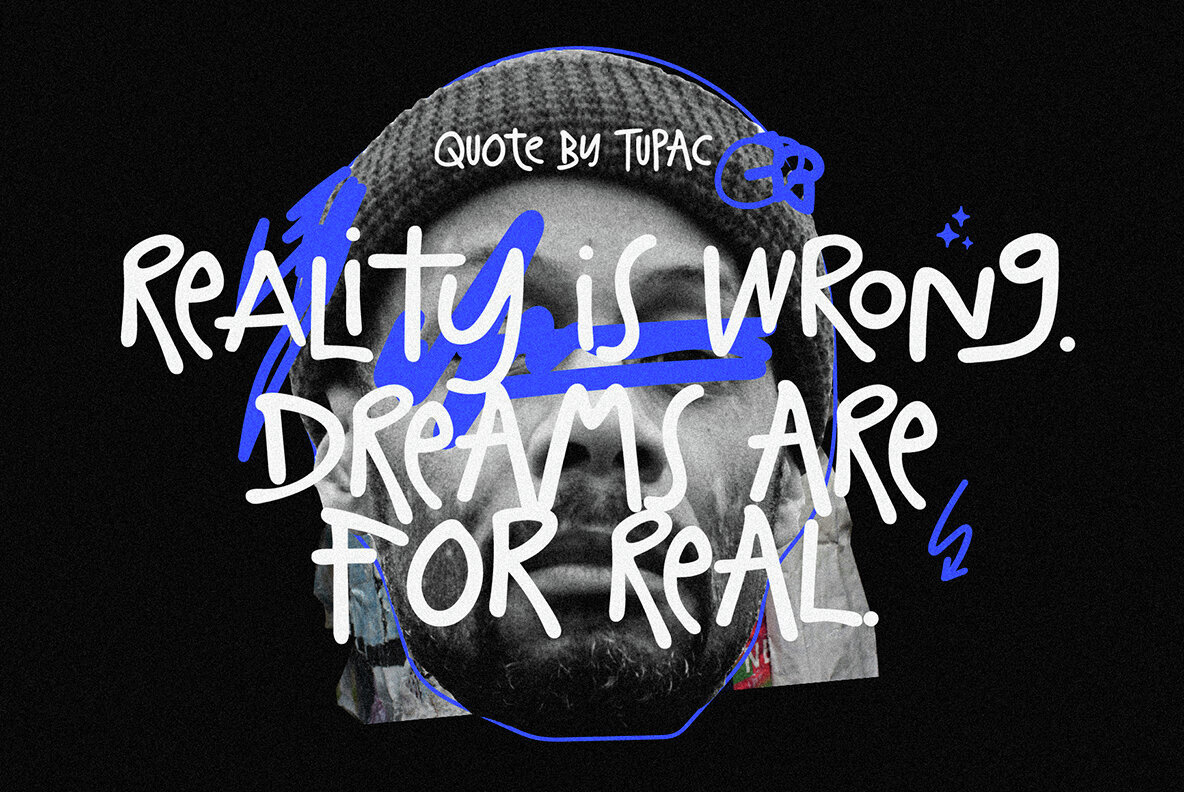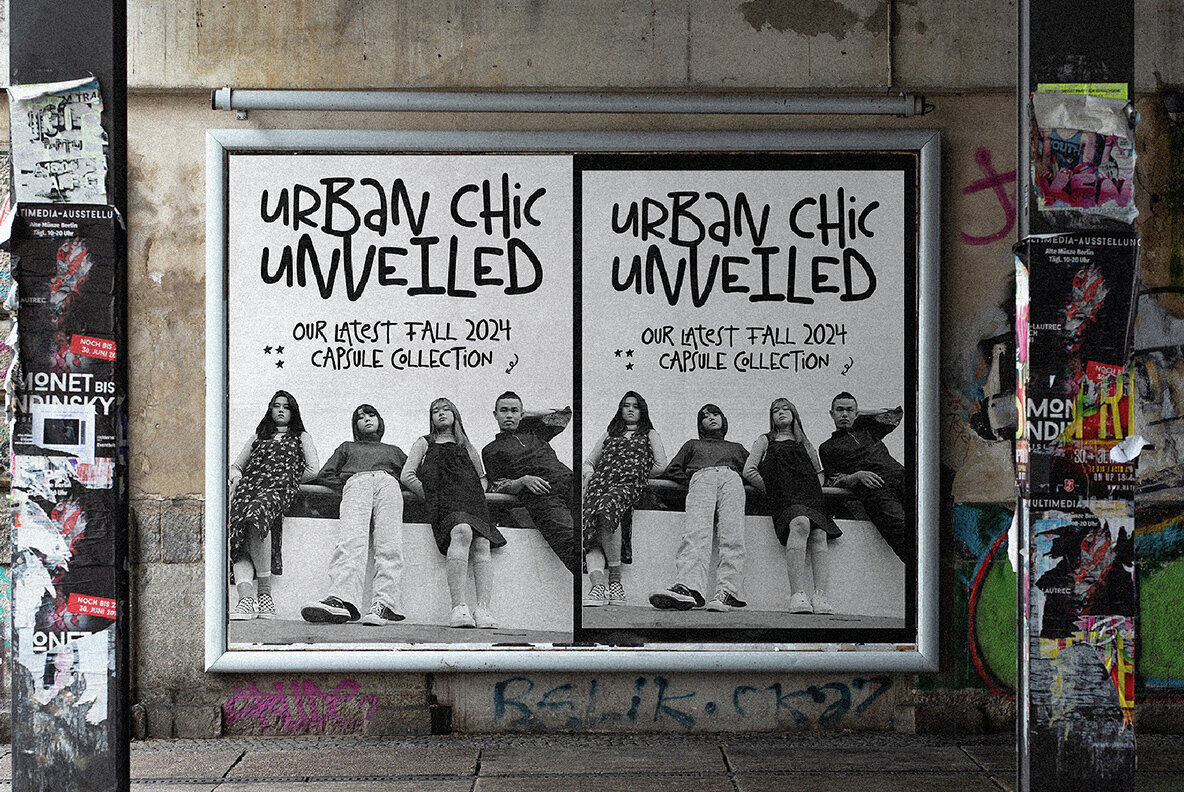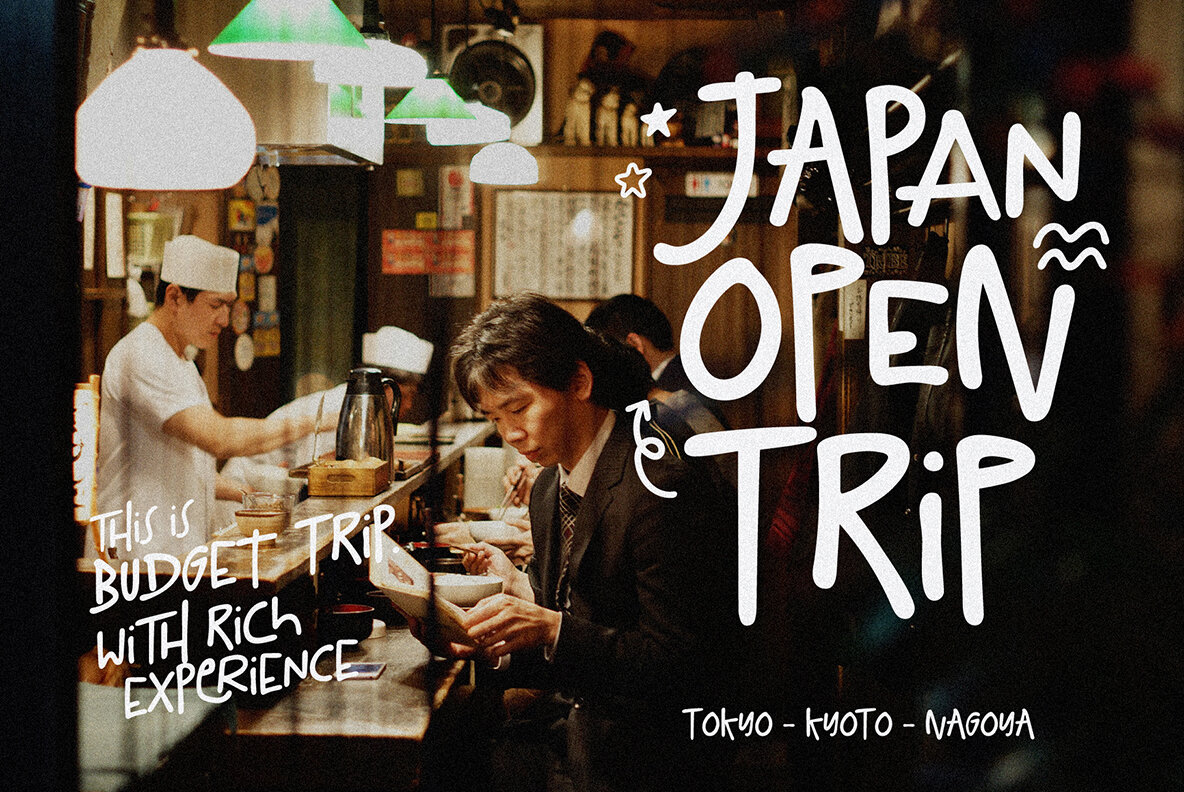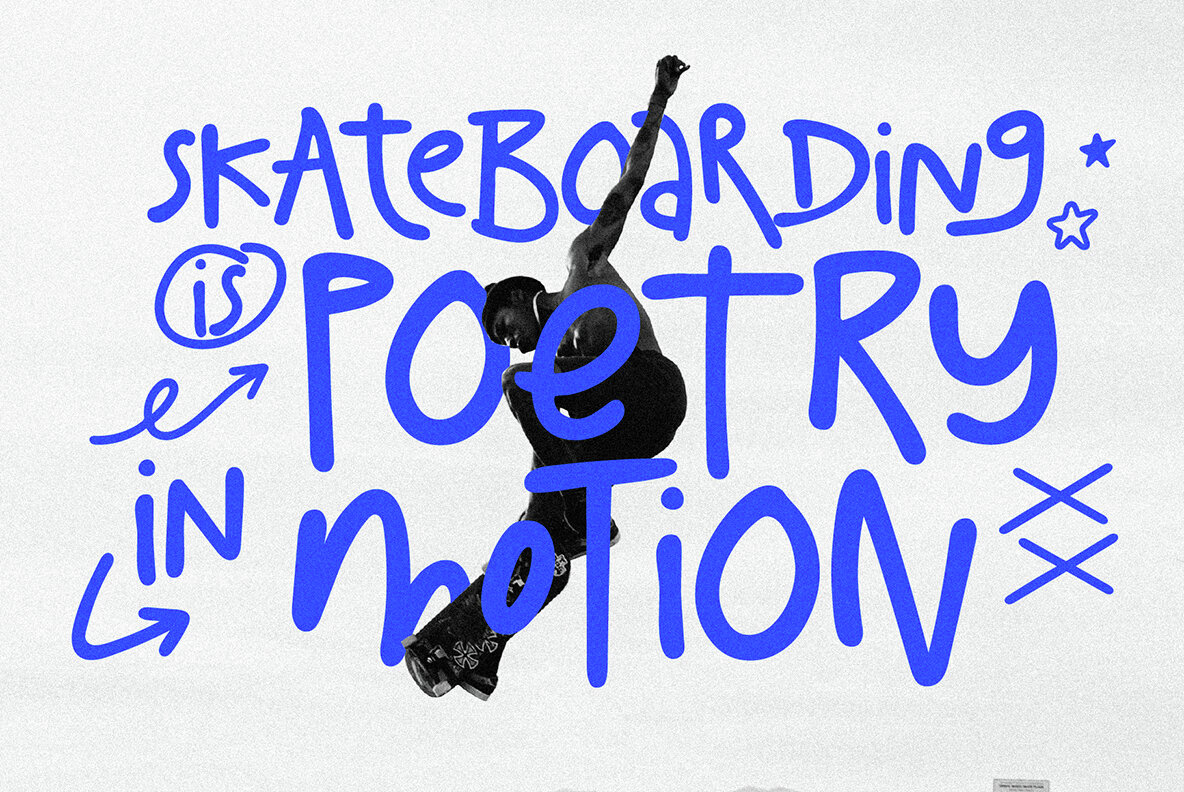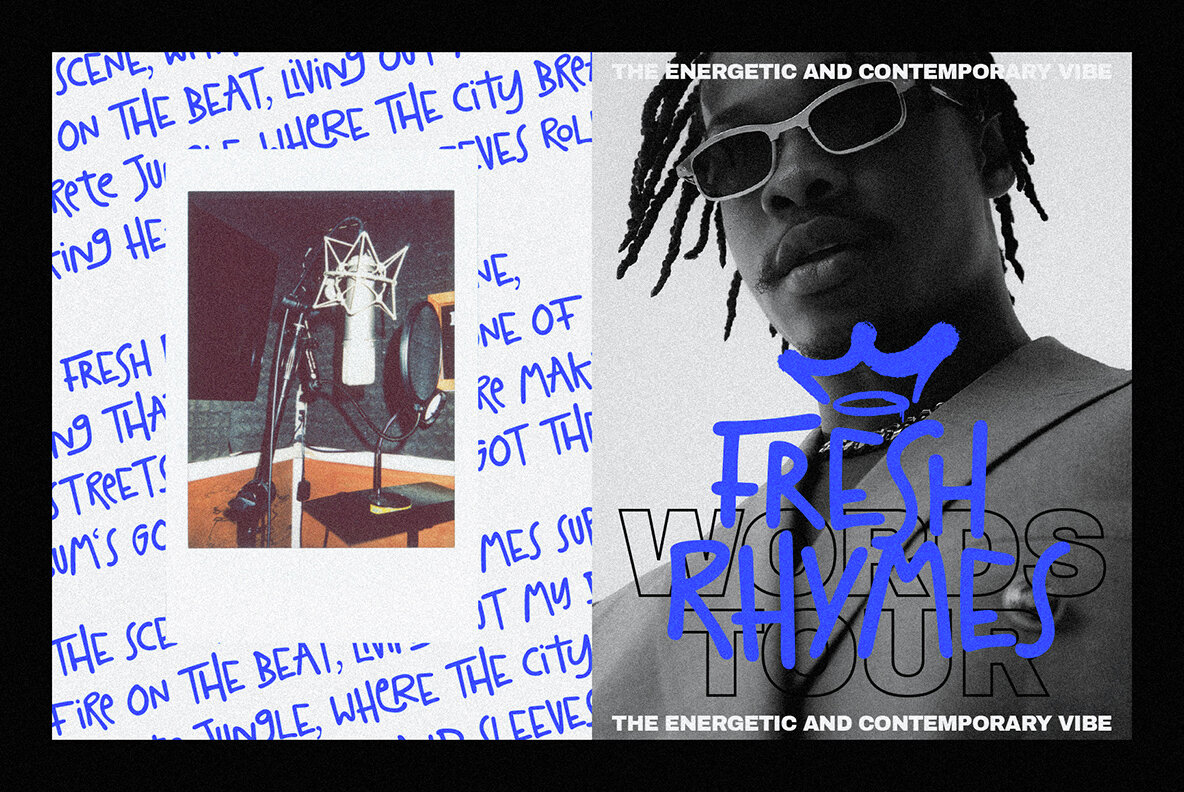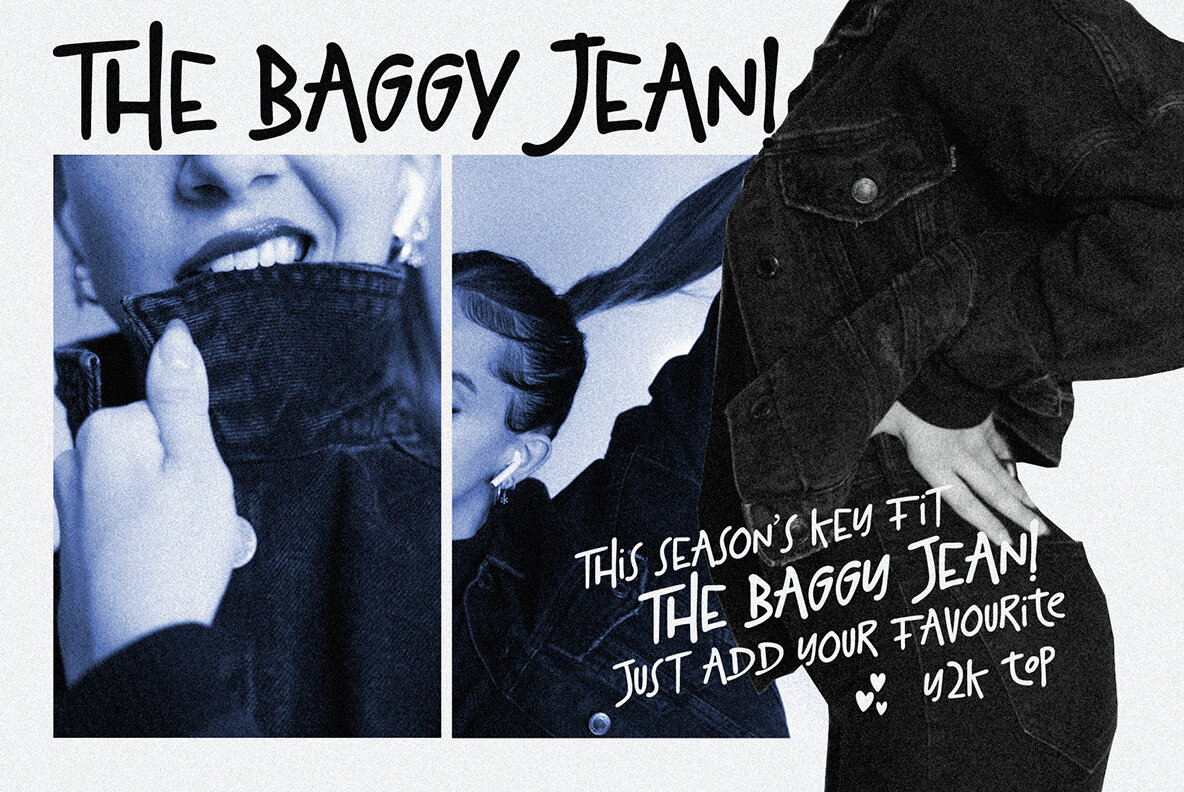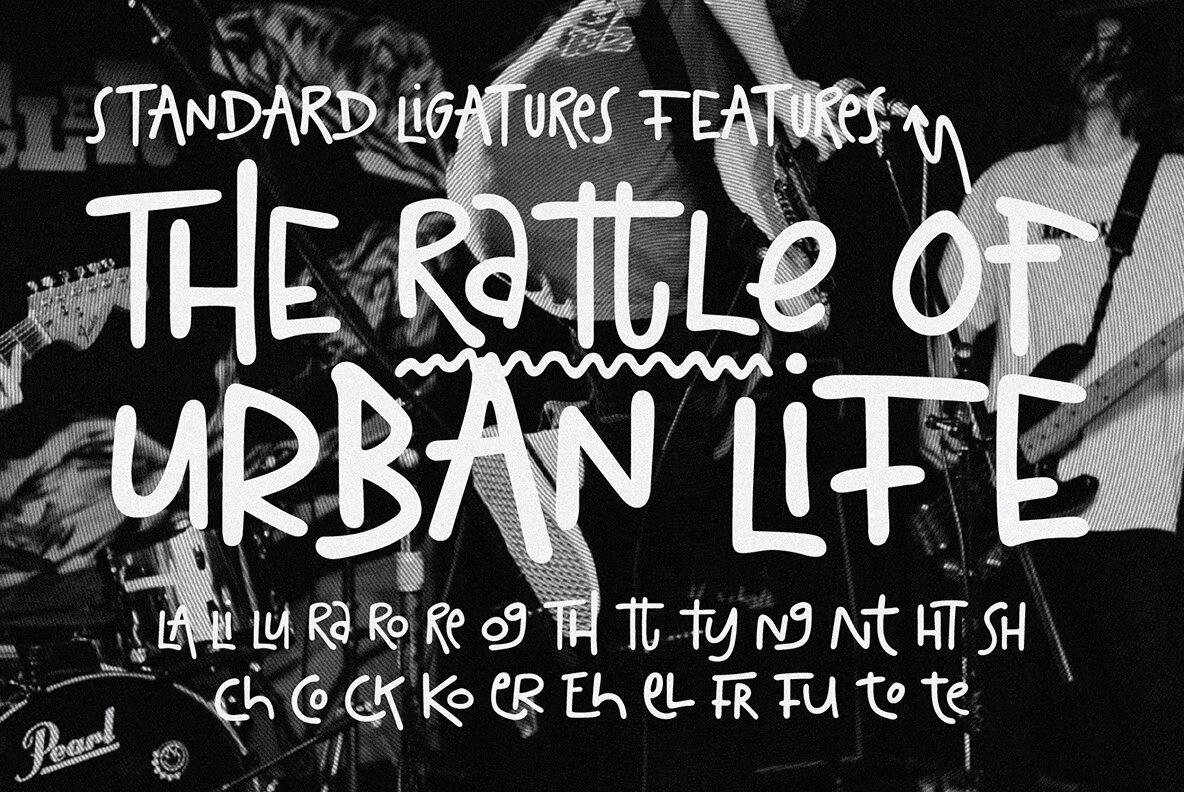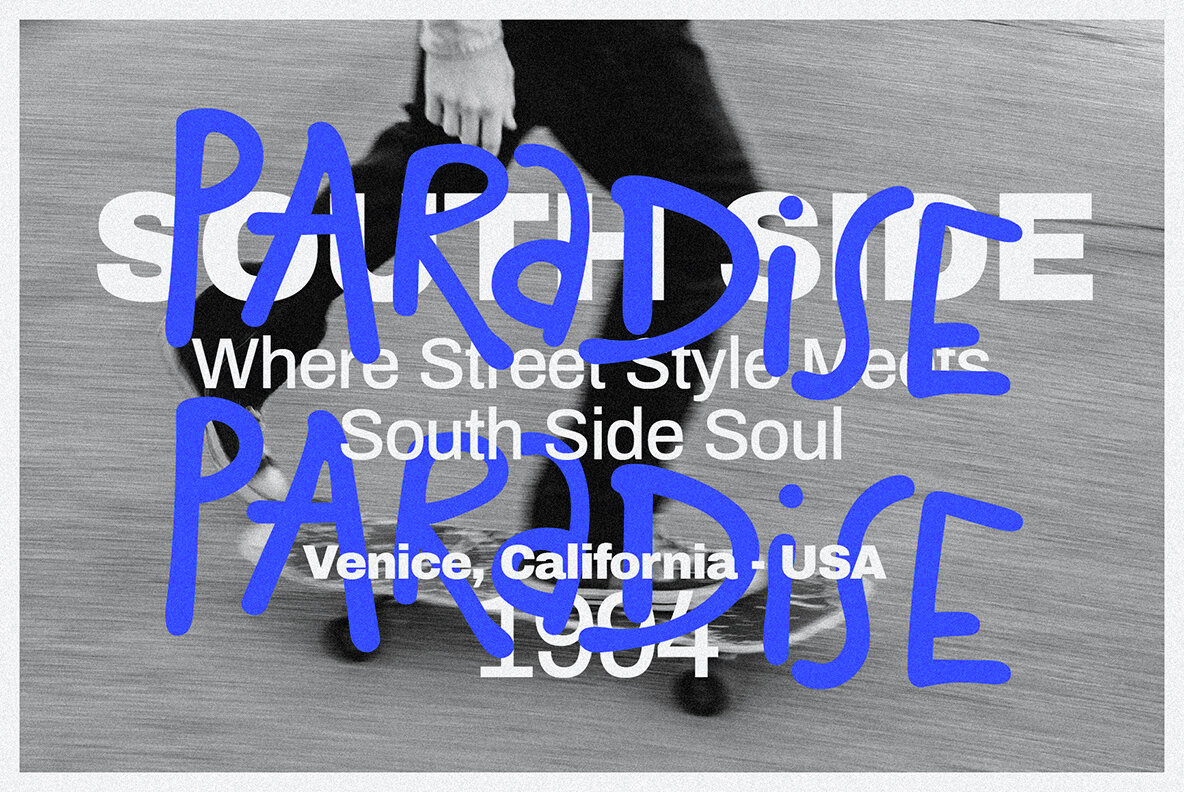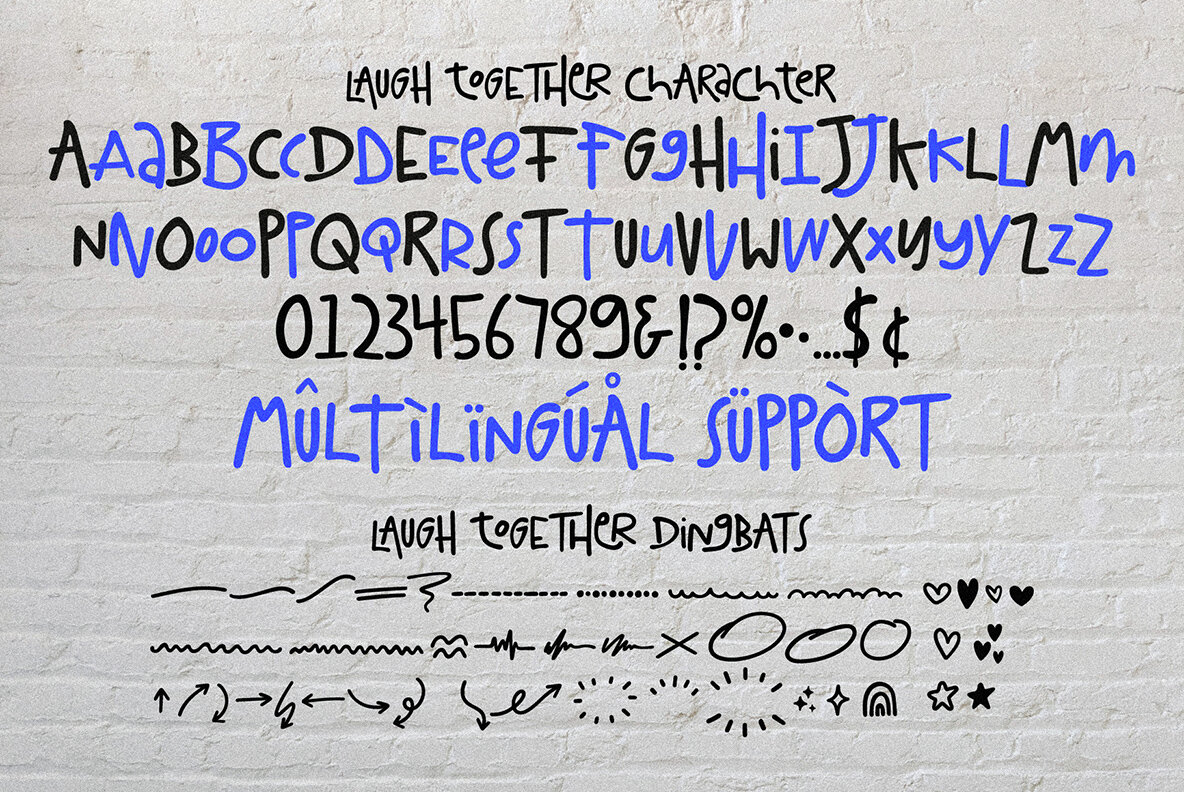
Laugh Together Font
Laugh Together is a dynamic display font inspired by urban streetwear culture and the vibrant world of brush paint tagging graffiti. With its bold and expressive style, Laugh Together makes a fun and bold statement in any design. This all-caps font features a complete set of A-Z alternates, allowing you to experiment and create unique combinations. Additionally, Laugh Together supports multilingual characters, making it versatile for various language requirements. What sets Laugh Together apart is its unique feature of dingbat icons, adding an extra touch of playfulness and fun to your projects. These unique icons allow you to incorporate delightful elements into your designs and inject a dose of personality. For display projects, Laugh Together is ideal for headings, t-shirts, flyers, greeting cards, product packaging, book covers, printed quotes, logotypes, or album covers. It adds a distinctive urban flair and a touch of boldness to your compositions.